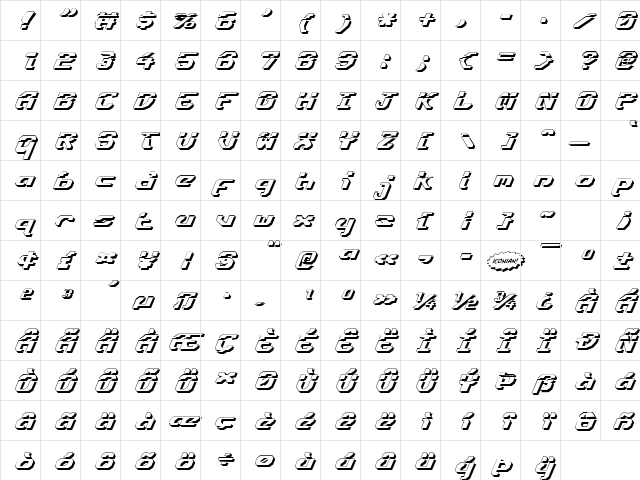
Complete Ensign Flandry LasShad Italic glyph index. Displaying only characters natively supported by Ensign Flandry LasShad Italic font.
Ensign Flandry LasShad Italic is a composed and adaptable typeface that performs quietly and consistently across a wide range of design contexts. The slanted form adds forward momentum and visual energy.